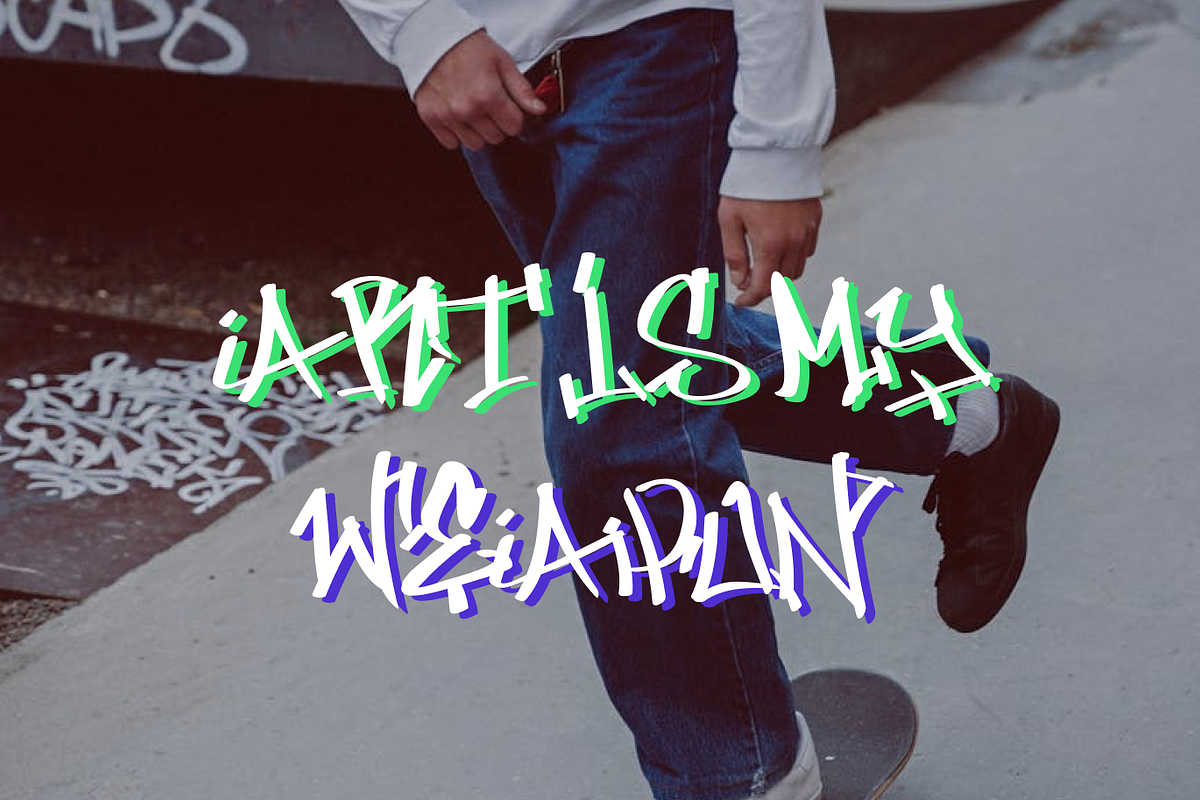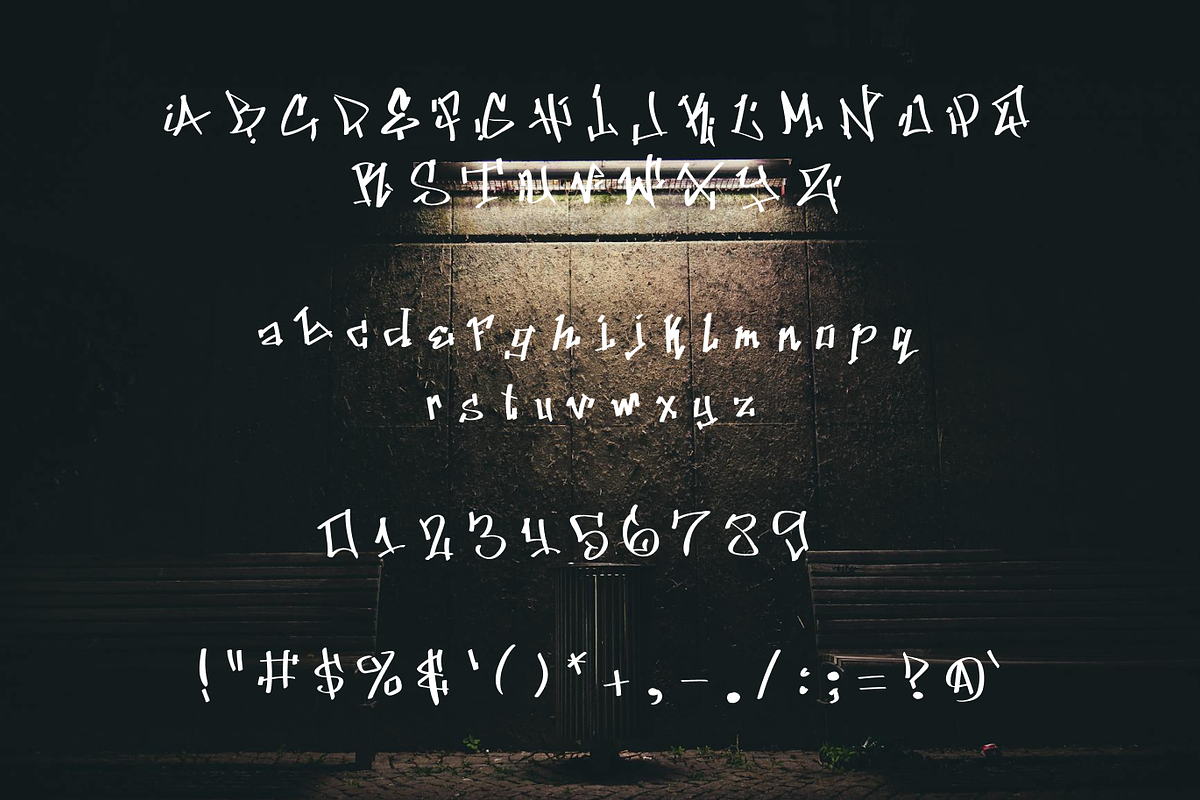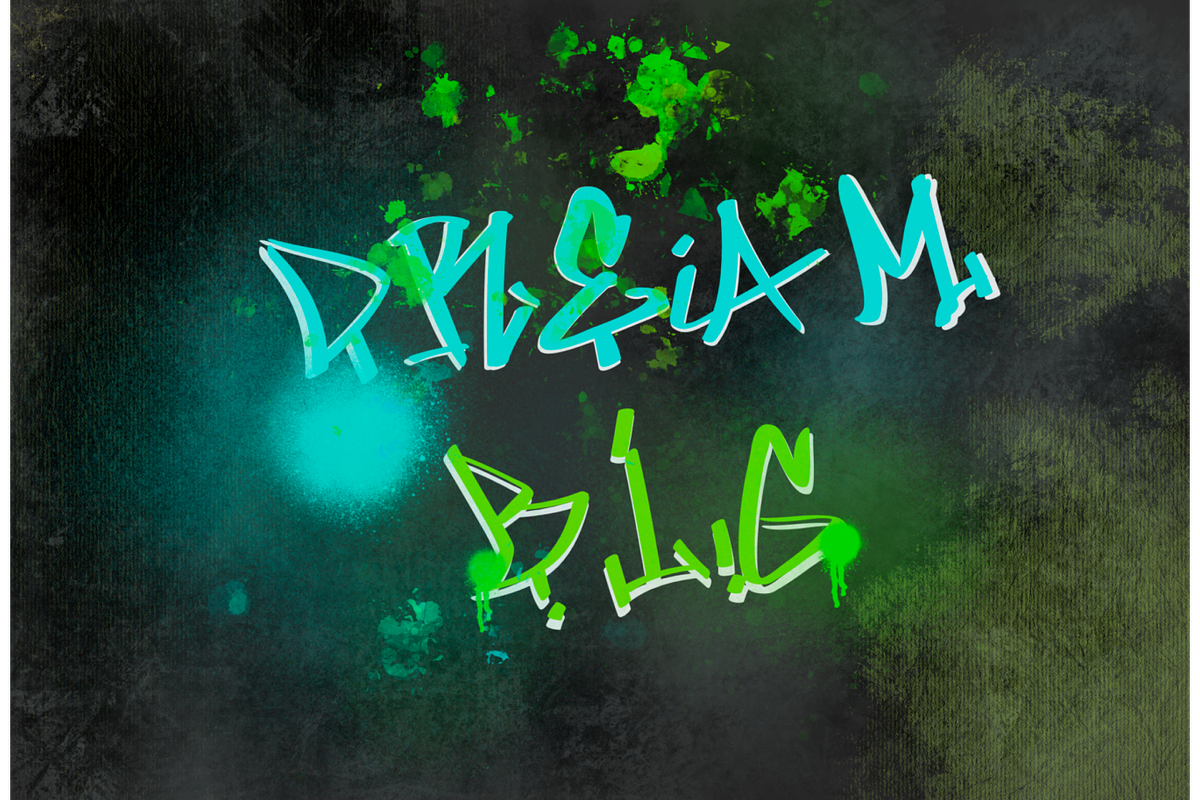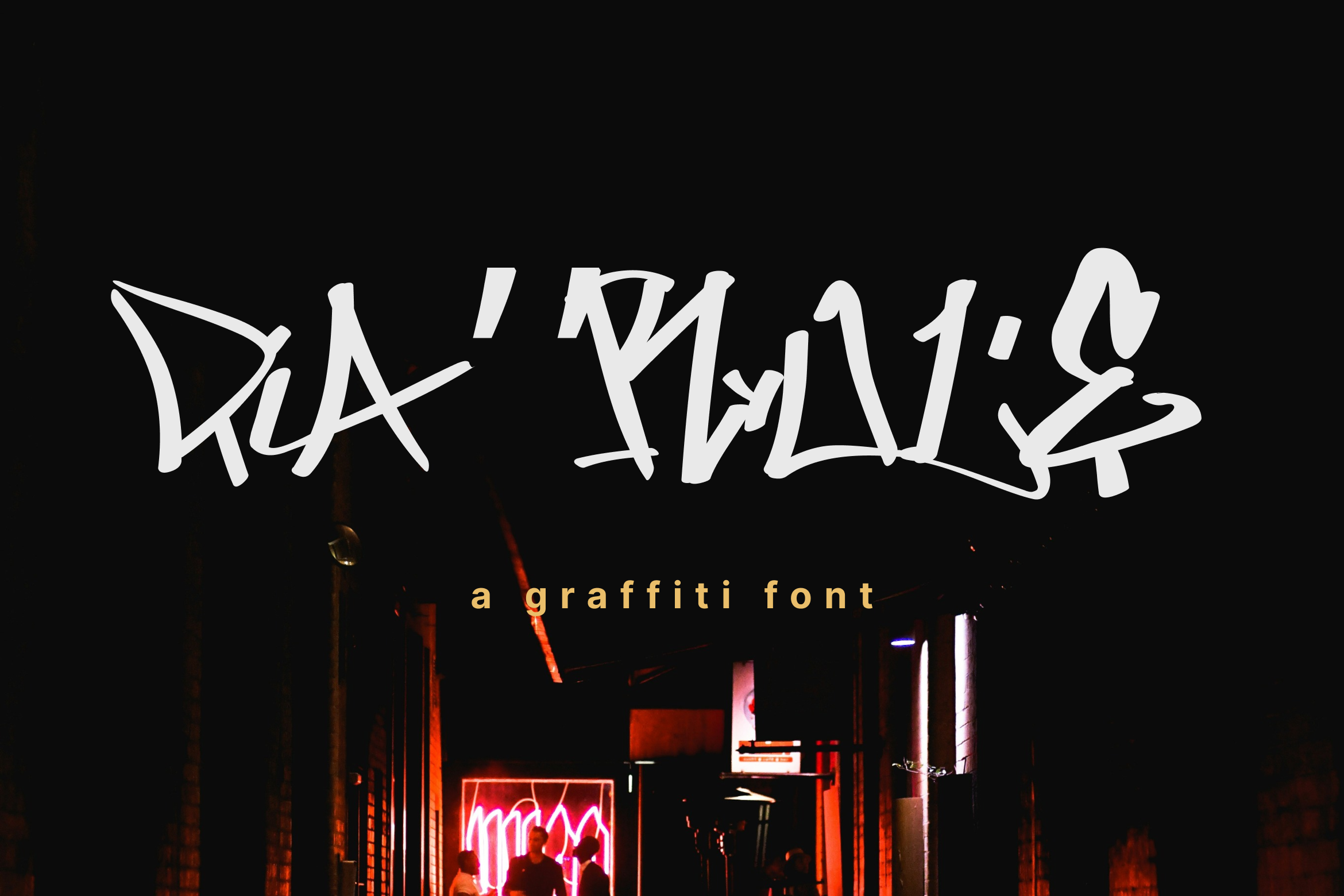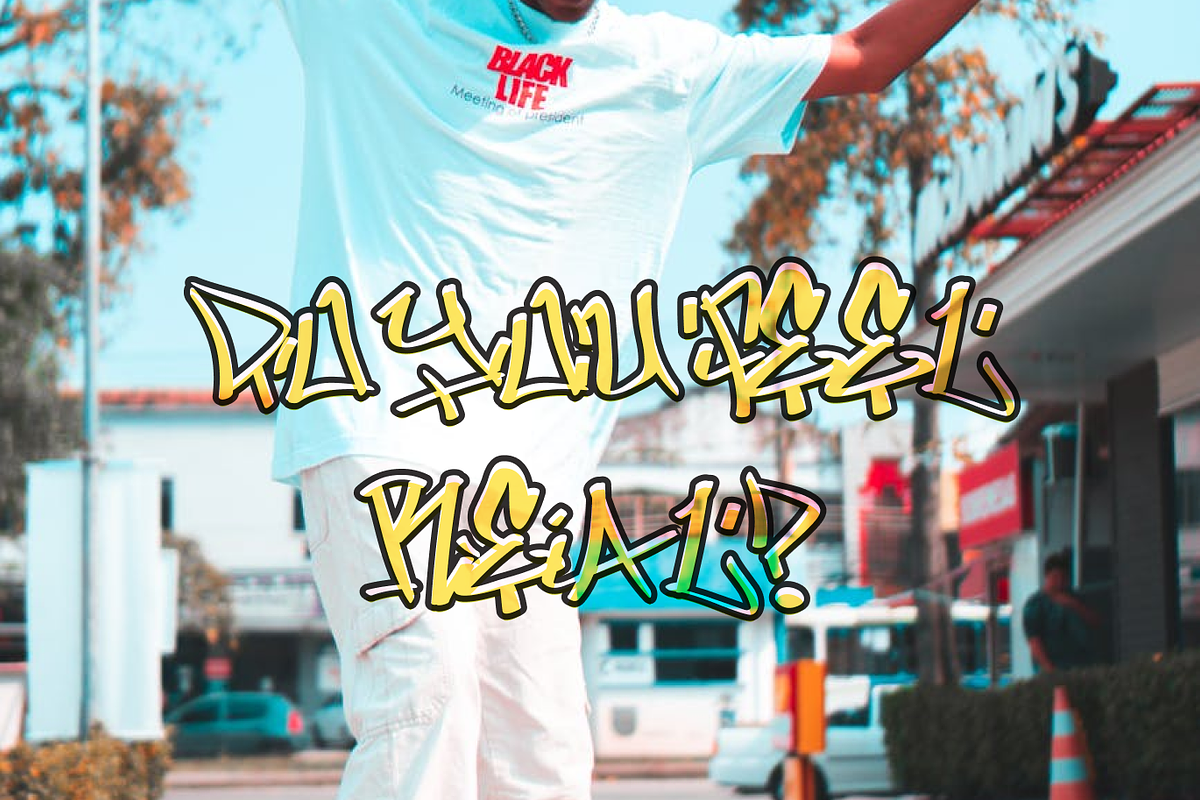
Da'Role Graffiti Font
Da'Role is a graffiti font for all your design needs. Suitable for street image products, men's fashion, teens, fun, rebel, dark, heroes, strong, indie scene, youth, foods, art and design, street art, and graffiti style. Features:
Basic Latin A-Z
Basic Latin a-z
Number and Punctuation Symbols